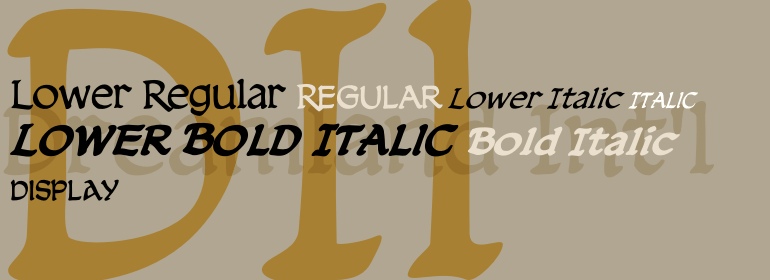
Dreamland Int'l Font
Dreamland Int'l Font is perfect for fantasy book covers, theme park branding, magical event invitations, children's entertainment logos, fairytale-themed merchandise, amusement park signage, enchanted forest attractions, storybook illustrations, magical kingdom promotions, and whimsical vacation resort advertising.
What makes Dreamland Int'l Font so exciting is its extraordinary ability to transport viewers into magical realms where dreams come alive and imagination knows no boundaries. This enchanting typeface captures the wonder and mystery of fantastical worlds with letterforms that seem to shimmer with fairy dust and sparkle with otherworldly magic. The font's dreamy design elements perfectly embody themes of adventure, fantasy, and childhood wonder, making it an indispensable choice for brands and projects that create magical experiences and unforgettable memories for people of all ages.
Dreamland Int'l Font comes in multiple font families including Regular, Bold, Light, Italic, Condensed, Extended, Magical, and Sparkle variations. Each family member maintains the core enchanted characteristics while offering different wonder levels and stylistic approaches to suit various fantasy design requirements.
The ethereal design elements in Dreamland Int'l Font make it particularly effective for entertainment industries focused on creating immersive magical experiences. Its enchanting presence works beautifully across both digital applications and large-scale environmental graphics, where the fantastical letterforms can create the full magical atmosphere that visitors expect from dreamlike destinations.
Entertainment professionals recognize how Dreamland Int'l Font transforms ordinary promotional text into magical invitations to extraordinary adventures. The typeface's whimsical character set includes special fantasy symbols and decorative elements that enhance the overall enchanted atmosphere of any campaign.
For creative professionals working in theme parks, entertainment, and fantasy industries, Dreamland Int'l Font serves as the perfect tool for creating memorable brand experiences that capture the timeless magic and wonder that transforms ordinary moments into extraordinary dreams.